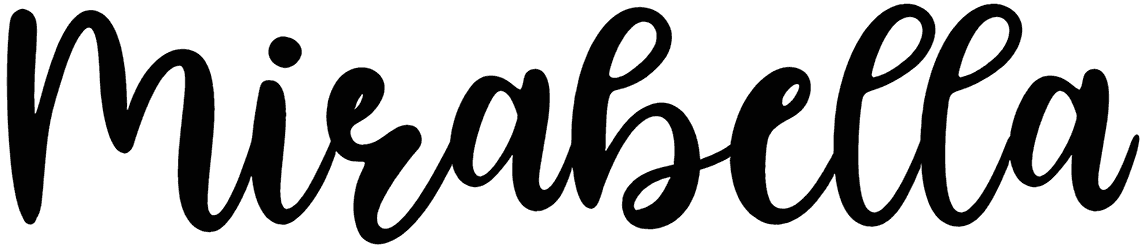
Mirabella Font
Mirabella is a decorative script font that ranges from thick to thin strokes and has caps that can give your writing a personalized look. This handwritten font gives an authentic feeling to your texts that can attract the audience’s sense of trust and stop them from reading your content.
With this invitation font, you have an all-in-one tool that you can use for clothing labels, tattoos, album covers, and business logos, and always have a stylish and classy look.